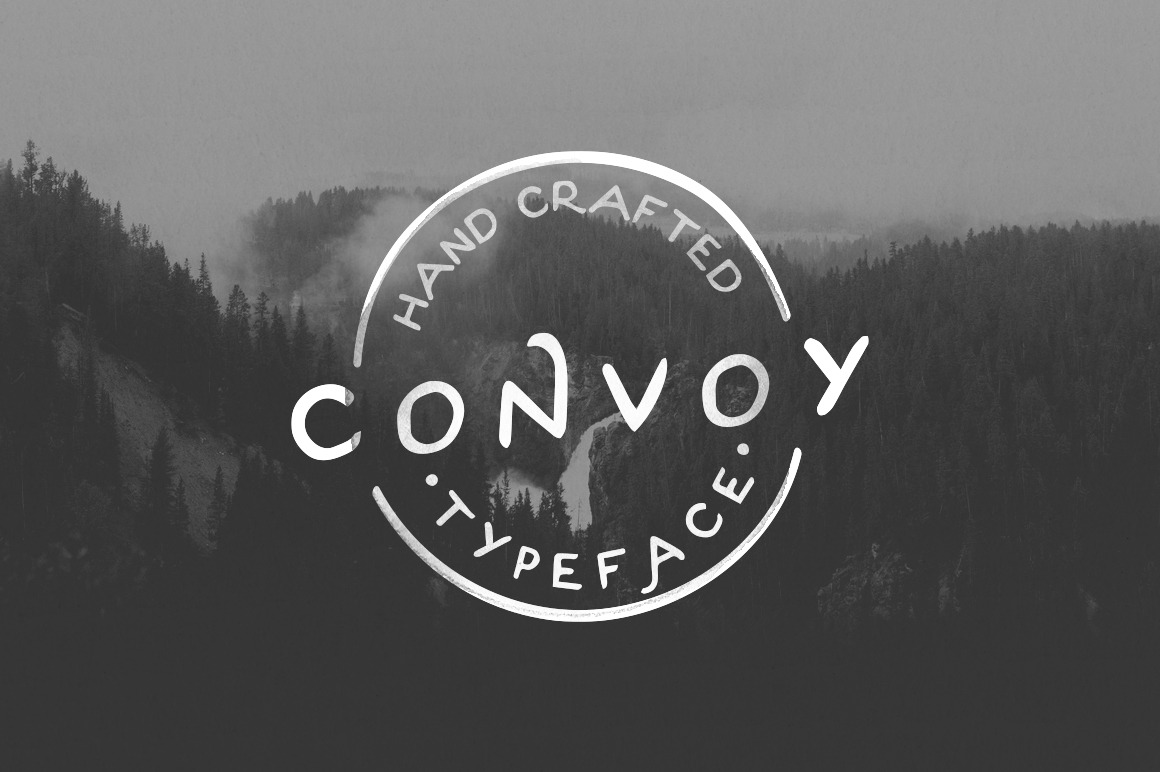
This can be one of my favorite font. Just think about the logos, quotes and things you can do with this beauty. Cool right? So now I made the font in two weights Regular & Bold.